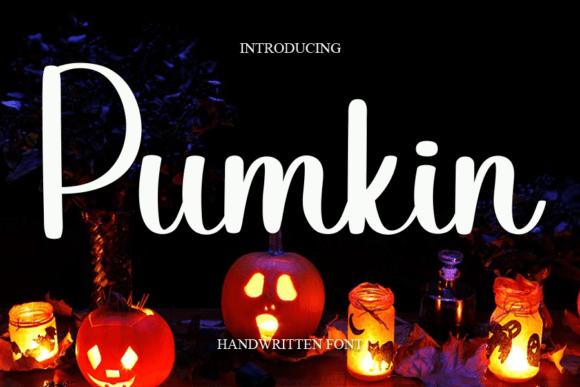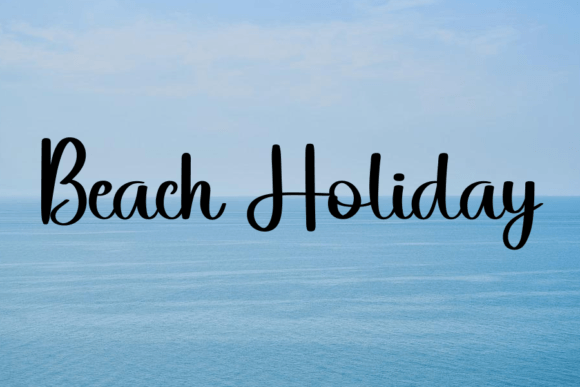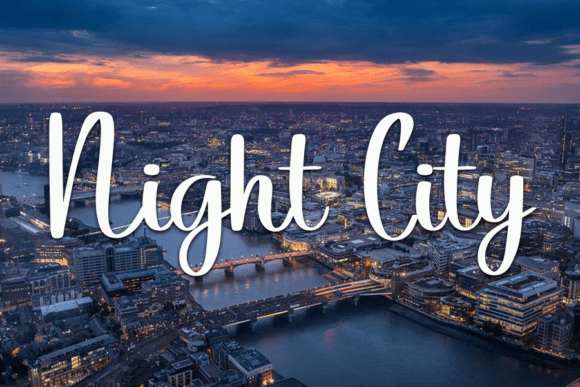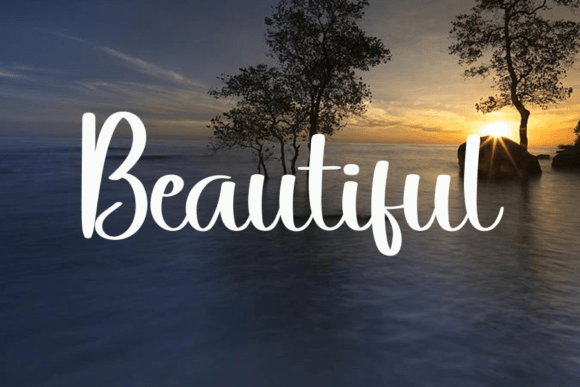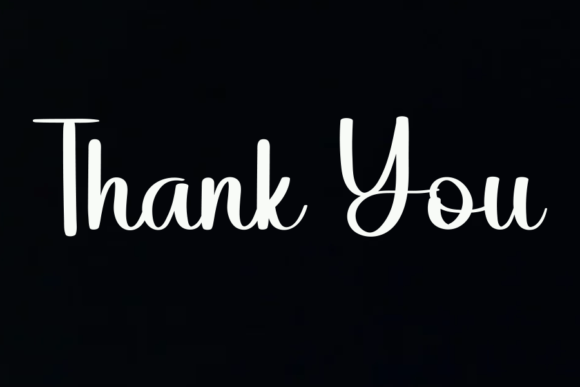
Pumkin Font
About Pumkin Font
“Pumkin” is a delightful and approachable handwritten font that exudes a sense of fun and friendliness. Its versatile and charming style makes it a perfect choice for a wide range of creative endeavors, whether you’re crafting handmade items, working on digital design projects, creating engaging presentations, or designing heartfelt greeting cards. This font has the potential to become your preferred choice for any occasion.
One of the standout features of “Pumkin” is its ability to convey a sense of playfulness and approachability. The handwritten nature of the font adds a warm and personal touch to your text, making it ideal for projects that aim to connect with your audience on a personal level. When you use “Pumkin,” your designs instantly exude a sense of care and friendliness.
The font’s versatility is another noteworthy aspect. “Pumkin” seamlessly adapts to various design contexts, ensuring that your creativity knows no bounds. Whether you’re creating DIY crafts, designing eye-catching digital graphics, delivering engaging presentations, or sending heartfelt well-wishes in the form of greeting cards, “Pumkin” adds a touch of whimsy and creativity.
Imagine using “Pumkin” for a DIY project, and how it adds a charming and personal feel to your creations. Picture incorporating this font into your digital designs, making your graphics more approachable and inviting. When you choose “Pumkin” for your presentations, your content becomes not just informative but also visually engaging and memorable. Sending greeting cards with “Pumkin” as the font choice conveys a sense of warmth and care that words alone cannot express.
In conclusion, “Pumkin” is more than just a font; it’s a creative tool that enhances your ability to connect with your audience and convey your message with a friendly and inviting tone. Its fun and friendly style makes it an ideal choice for a wide range of projects, and its handwritten charm adds an extra layer of authenticity. “Pumkin” has the potential to become your favorite go-to font, elevating your designs and making every occasion a bit more special.